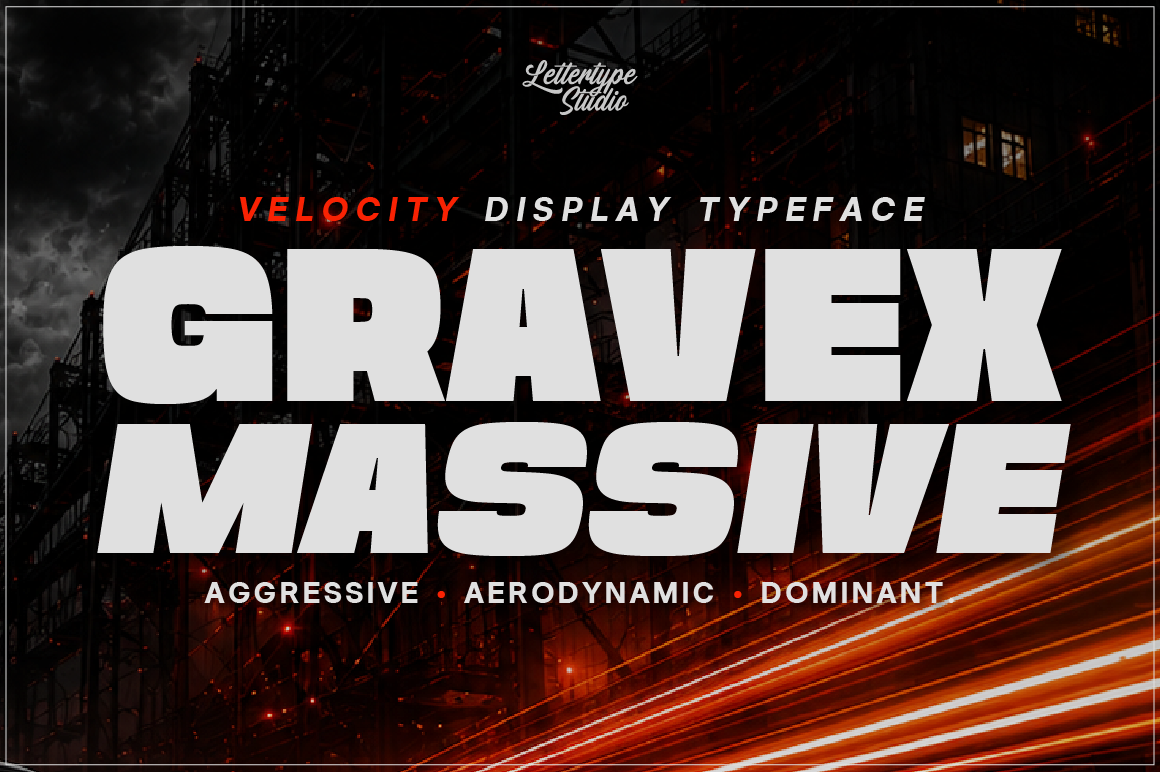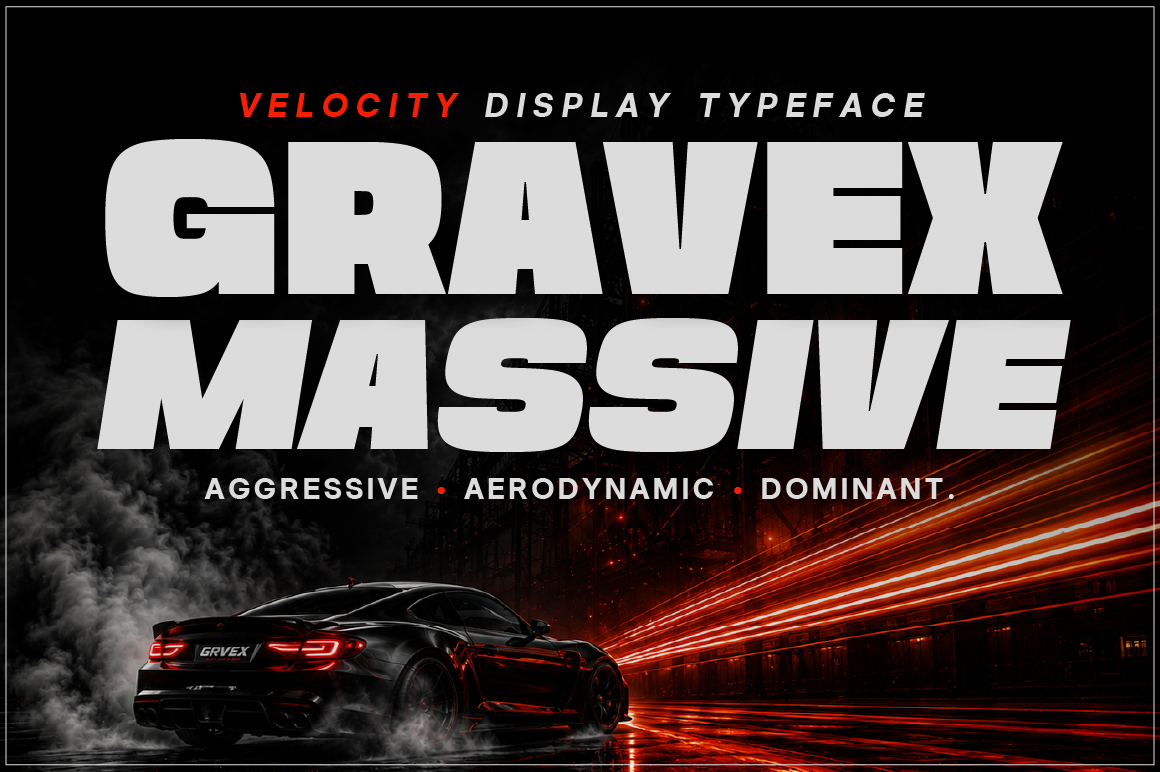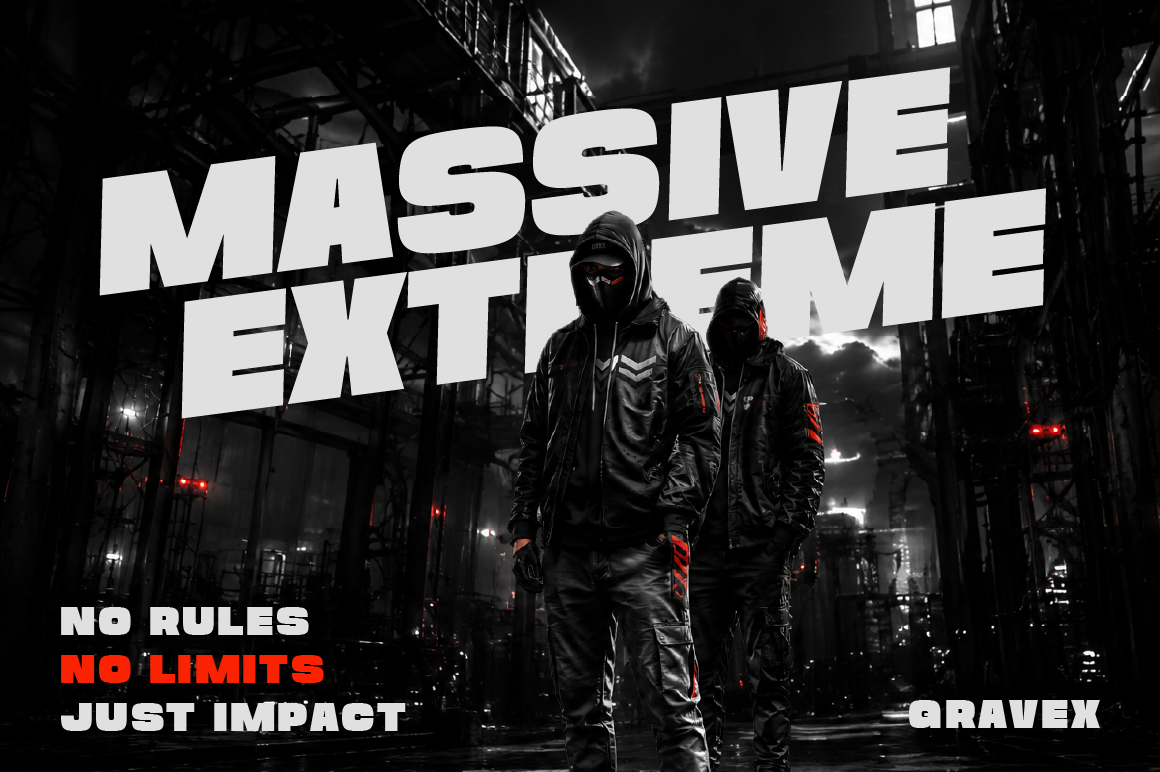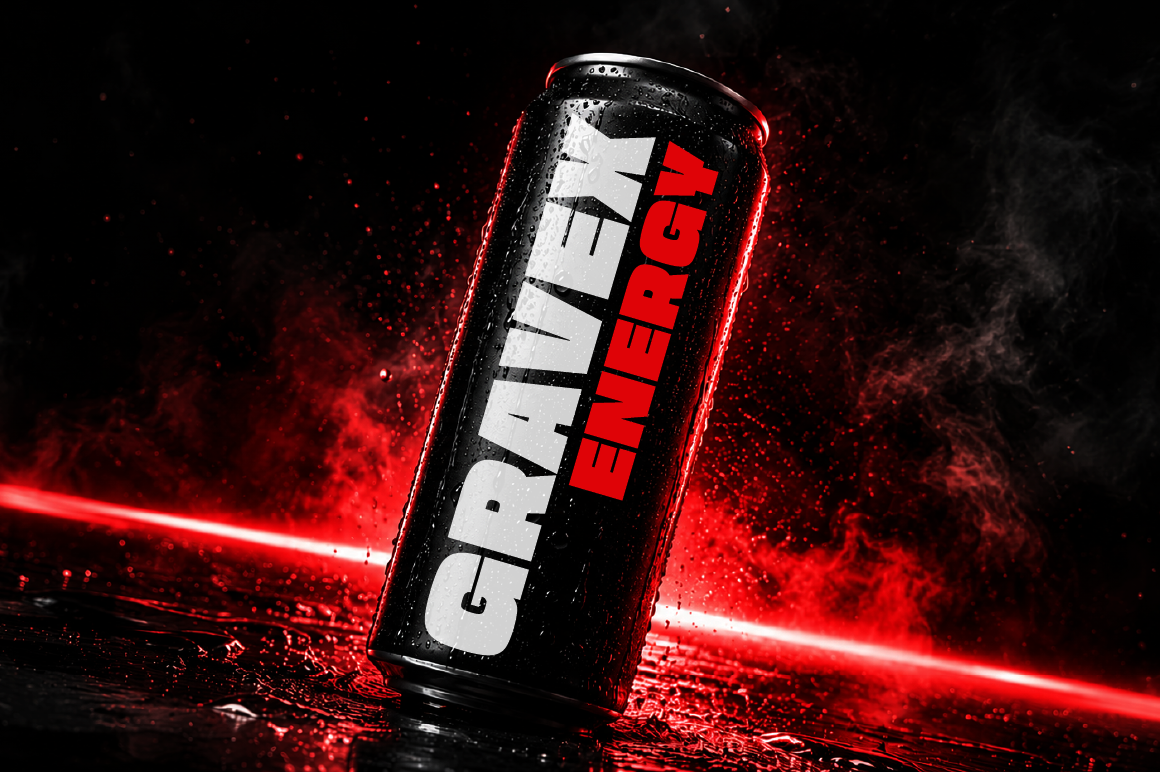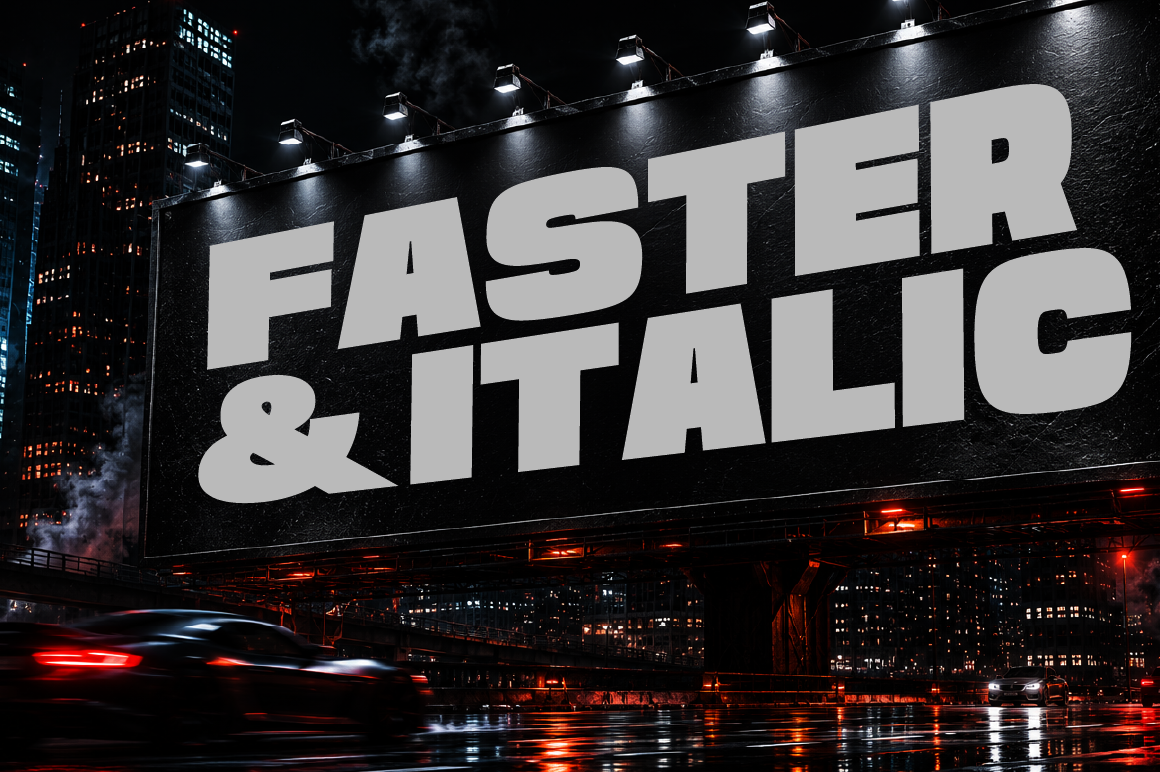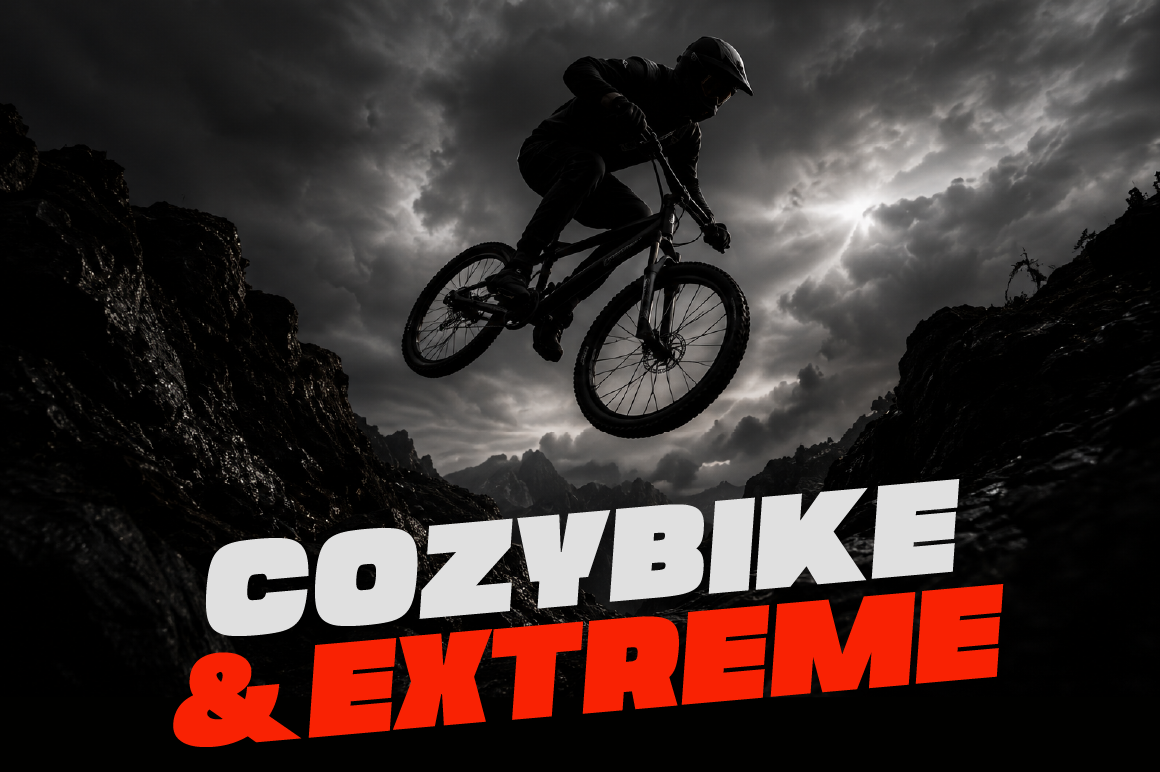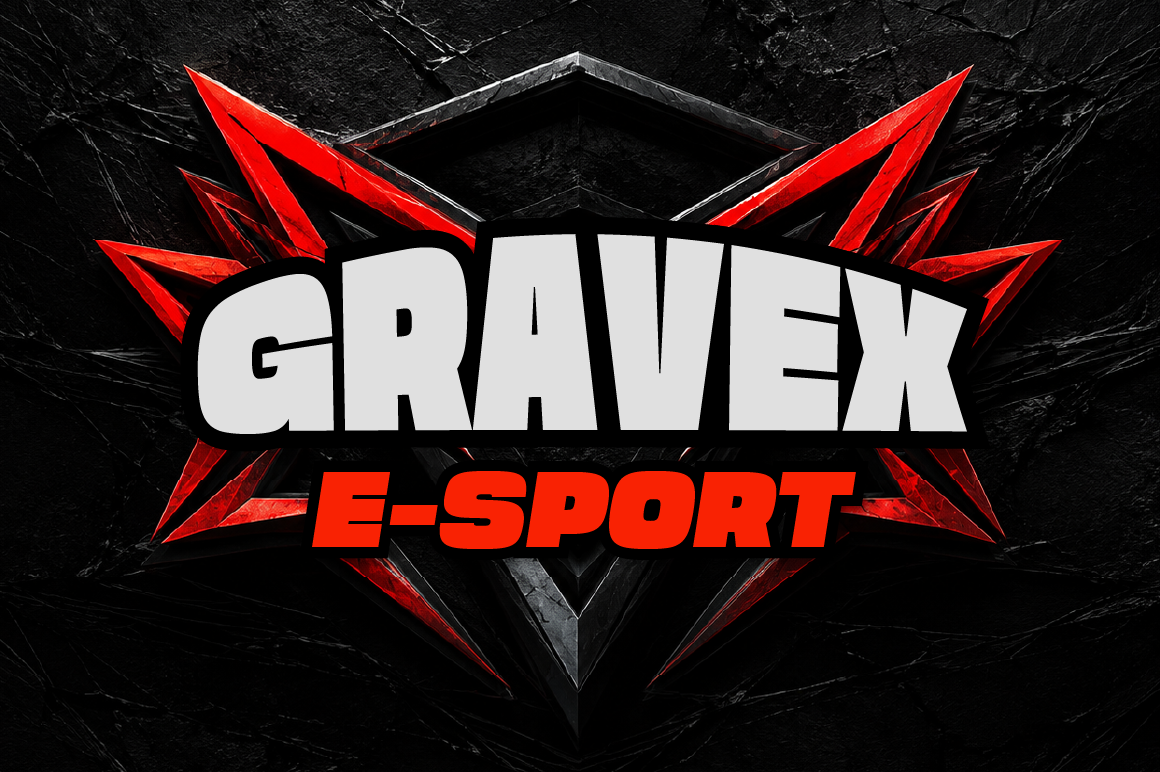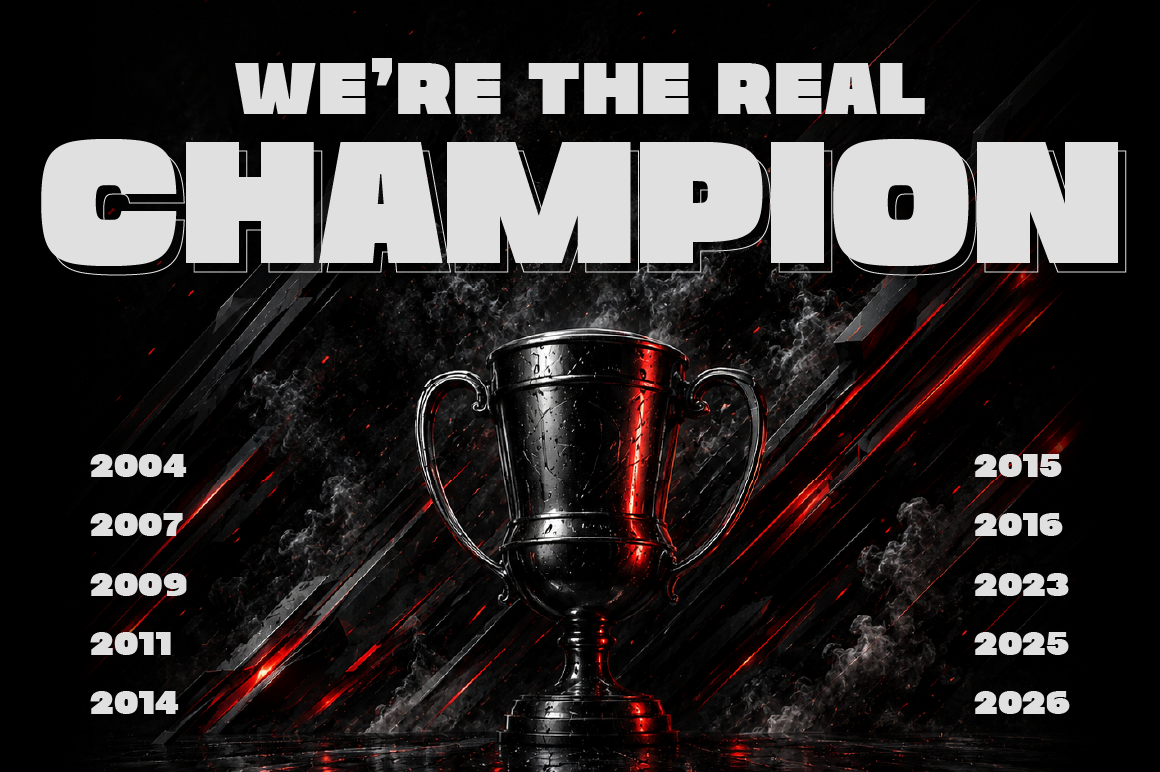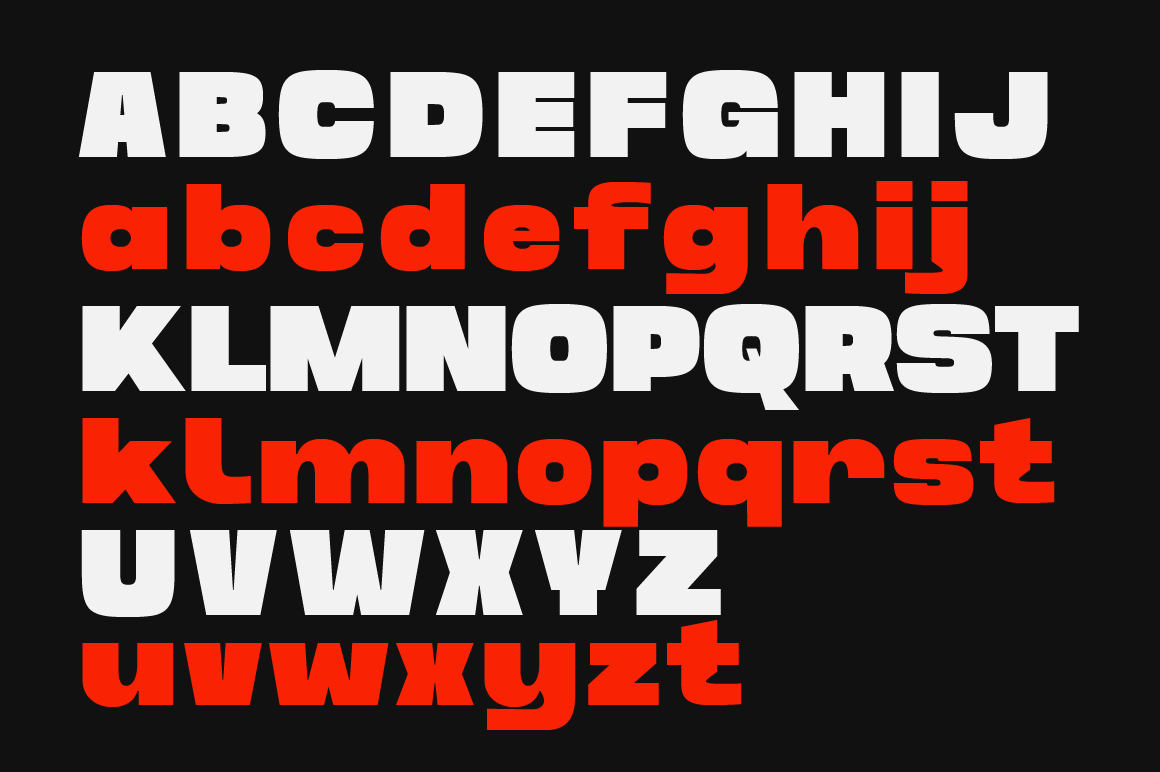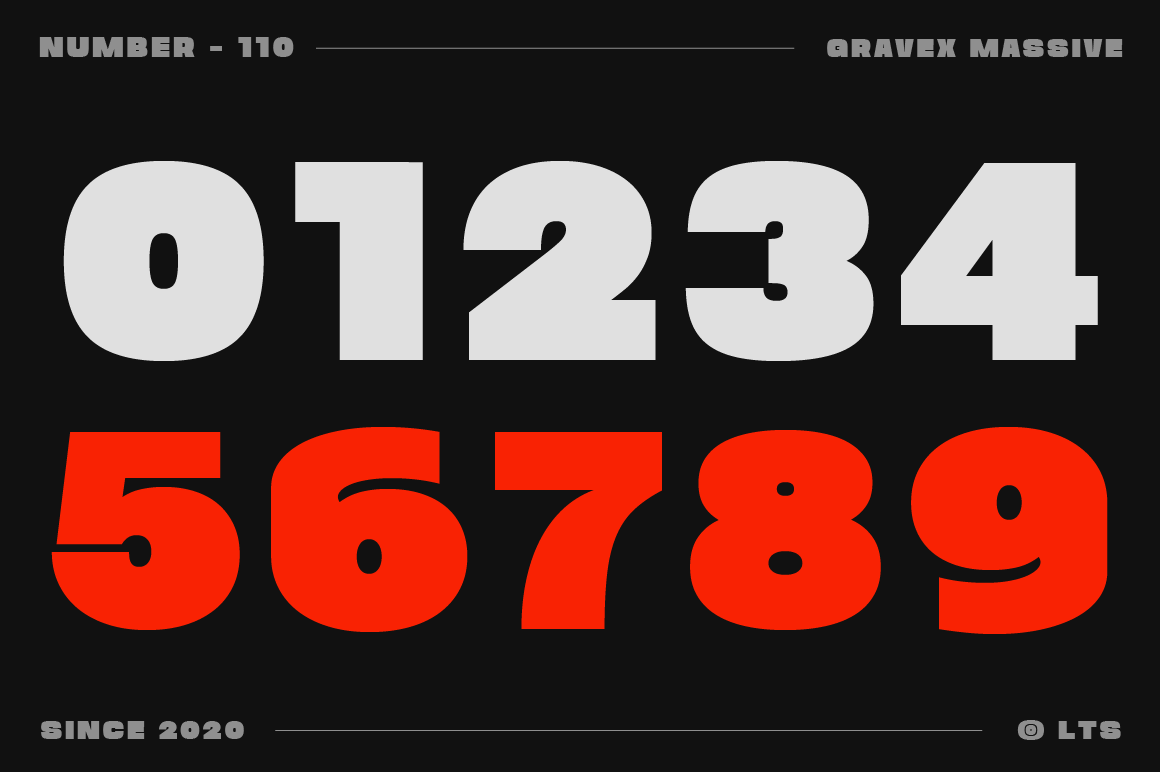
Gravex Massive explores the intersection of motorsport culture, esports energy, and modern industrial typography. Designed with bold geometric proportions and aggressive italic motion, the typeface delivers a commanding visual rhythm inspired by velocity, racing dynamics, aerodynamic movement, and high-impact commercial branding. Every character is shaped to feel fast, compact, and dominant while maintaining strong readability across large-scale display applications.
Built primarily for uppercase performance typography, Gravex Massive thrives in branding systems that demand instant attention and strong identity. From racing decals and esports tournament graphics to energy drink packaging and sports apparel campaigns, the typeface creates a cinematic sense of motion and competitive intensity. The heavy weight and forward-leaning structure make it especially effective for headlines, logo systems, promotional posters, social media graphics, and performance-driven visual storytelling.
The visual direction of Gravex Massive combines futuristic sports aesthetics with urban industrial influence. Its bold personality works exceptionally well with dark environments, chrome textures, neon accents, motion blur effects, and high-contrast layouts commonly found in automotive campaigns, gaming culture, and streetwear branding. Designed for creators seeking a strong commercial display typeface with aggressive energy, Gravex Massive transforms typography into a visual engine of speed and impact.
Gravex Massive Features:
- 2 Styles
- Upright & Italic
- 454 Glyphs Total
- 270+ Languages Support
Perfect For:
- Racing & Automotive Branding
- Esports & Gaming Graphics
- Sportswear & Gym Campaigns
- Energy Drink & FMCG Packaging
- Urban Streetwear Posters